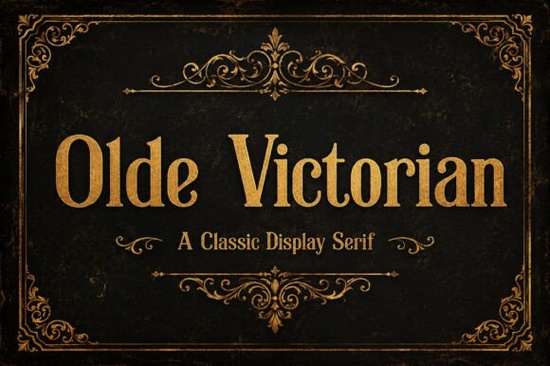
Olde Victorian Font is a standout choice for anyone looking to add a touch of timeless elegance to their design projects. This classic display serif font brings a sense of refined sophistication, perfect for creating visuals that feel both historical and modern. Whether you're working on branding, packaging, or editorial layouts, Olde Victorian offers a unique blend of high-contrast strokes and rounded terminals that evoke the charm of the 19th century.
Designed with a polished visual weight and a decorative posture, this font is ideal for luxury boutique branding, high-end spirits labels, and bespoke event invitations. Its ability to convey a sense of artisanal excellence makes it a valuable addition to any designer’s toolkit. The font’s vintage grace and professional beauty can elevate your work without overwhelming the overall composition.
What Makes Olde Victorian Unique?
One of the key features of Olde Victorian is its balance between tradition and versatility. The font maintains a strong, readable structure while still offering ornate details that make it suitable for display purposes. This makes it especially useful for headers, logos, and other prominent text elements where style and clarity are both important.
The font’s rhythmic, rounded terminals give it a soft, flowing appearance that contrasts beautifully with its bold, high-contrast strokes. This combination creates a visual hierarchy that draws attention without being distracting. It’s particularly effective when used in conjunction with simpler typefaces, allowing it to stand out while still maintaining a cohesive look.
Best Uses for Olde Victorian Font
Olde Victorian is well-suited for a variety of creative applications. For designers working on luxury branding, this font can help establish a sense of exclusivity and craftsmanship. It also works well for print-on-demand sellers looking to create eye-catching product listings or packaging designs that stand out in a crowded market.
Crafters and hobbyists may find it useful for creating custom stationery, wedding invitations, or art prints that have a vintage feel. Small businesses focused on niche markets, such as boutique shops or artisanal products, can use Olde Victorian to reinforce their brand identity with a touch of old-world charm.
How to Use Olde Victorian Effectively
To get the most out of Olde Victorian, consider pairing it with simpler, sans-serif fonts for contrast. This helps prevent the design from becoming too busy while still allowing the font to shine. Using it in smaller sizes for body text may not be ideal, but it works exceptionally well for headings, titles, and decorative elements.
When working with this font, keep the surrounding design elements minimal to let it take center stage. A clean background or subtle texture can enhance its visual appeal without competing with it. Experimenting with different weights and styles can also help you discover new ways to incorporate it into your projects.
- Use Olde Victorian for headlines and logos
- Pair it with a simple sans-serif for balance
- Limit its use to key visual elements
- Test different sizes and spacing for optimal readability
Whether you’re a designer, crafter, or small business owner, Olde Victorian Font offers a powerful way to express sophistication and heritage in your work. Its elegant style and versatile application make it a valuable asset for a wide range of creative projects.
Before finalizing your design, make sure to test the font in different sizes and settings to see how it performs. This will help ensure that it meets your needs and enhances the overall visual impact of your work.